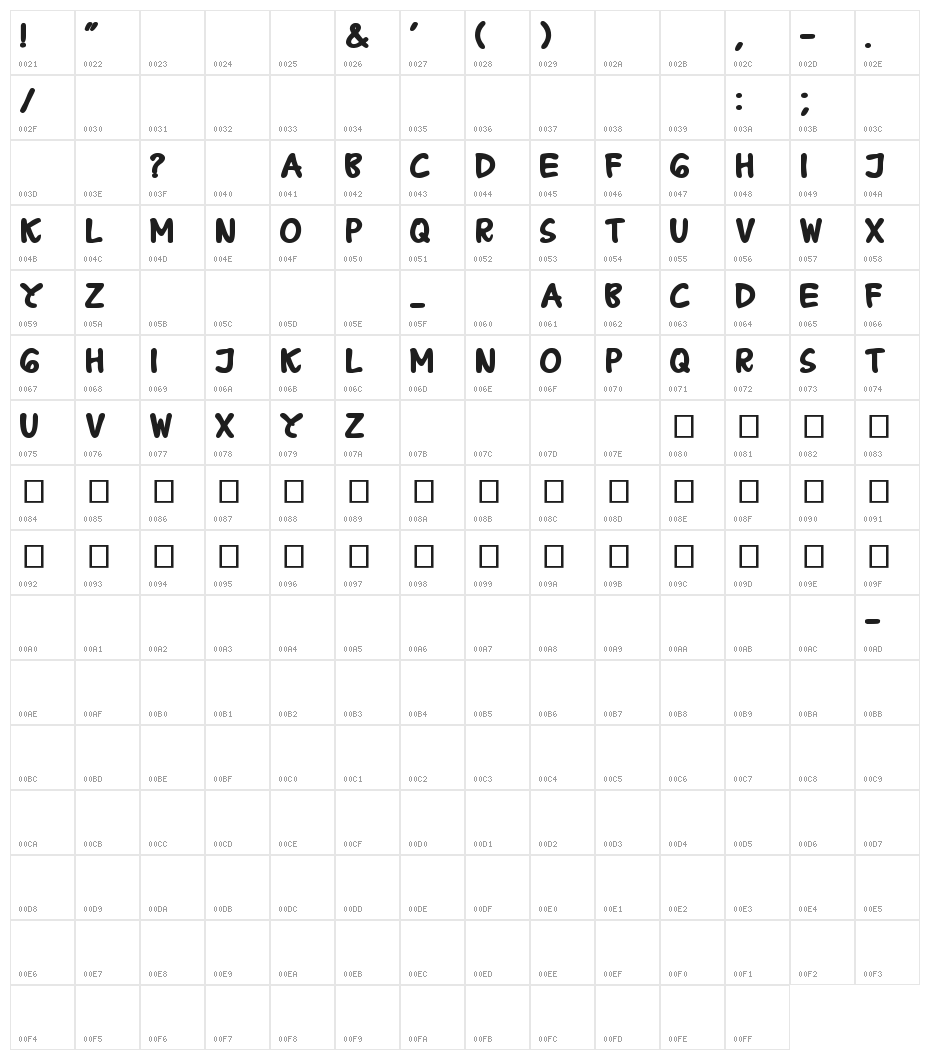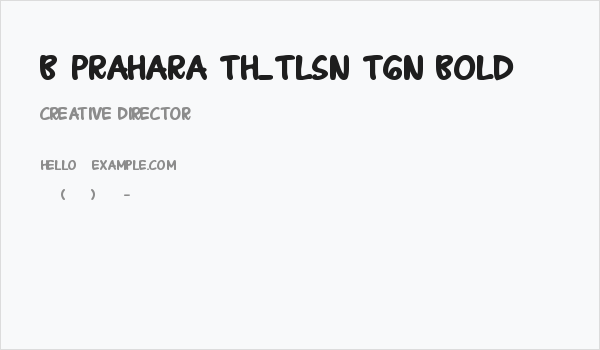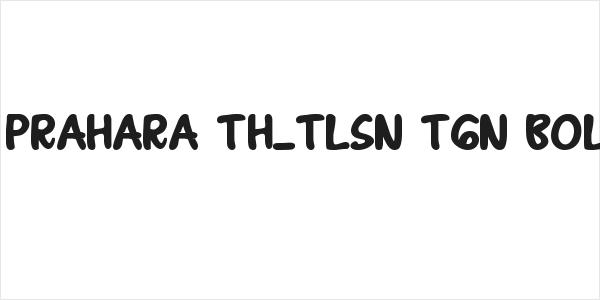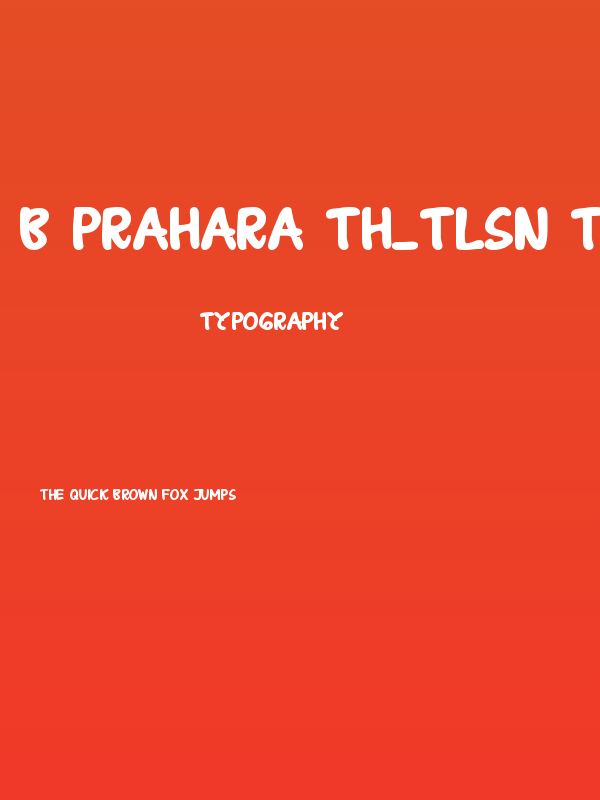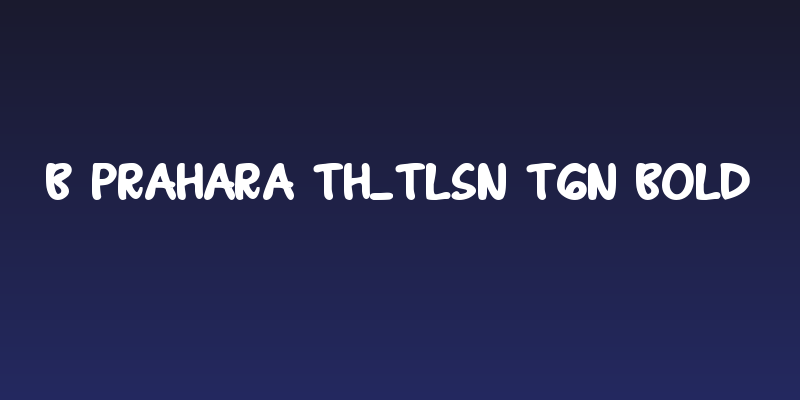
B Prahara TH_Tlsn Tgn Bold Font
B Prahara TH_Tlsn Tgn Bold Description
This font features a bold and playful design with rounded edges and a slightly irregular shape, giving it a hand-drawn appearance. The characters are thick and substantial, providing a strong visual impact. The uppercase and lowercase letters maintain a consistent style, with a whimsical and friendly feel. The numbers and special characters follow the same design principles, ensuring uniformity across all glyphs. This font is ideal for projects that require a fun and approachable aesthetic, such as children's books, playful branding, or casual invitations.
| Proposed Projects | Ideal for children's books, playful branding, casual invitations, and fun posters. |